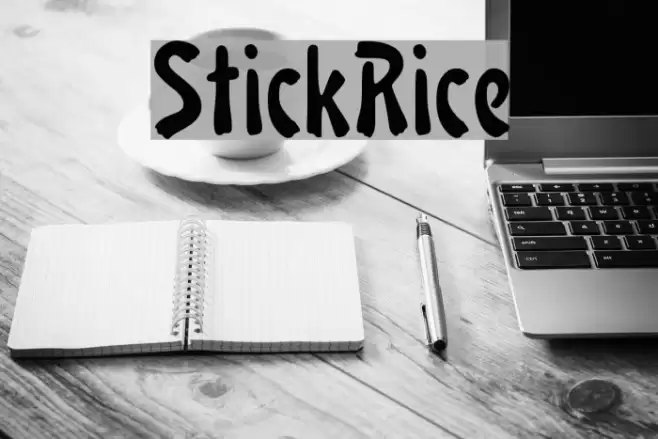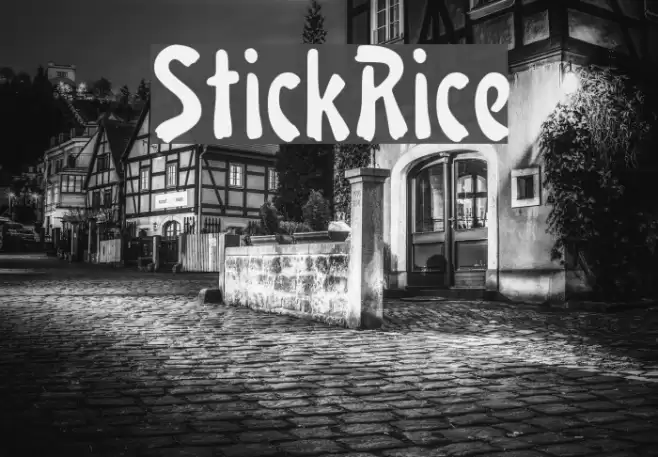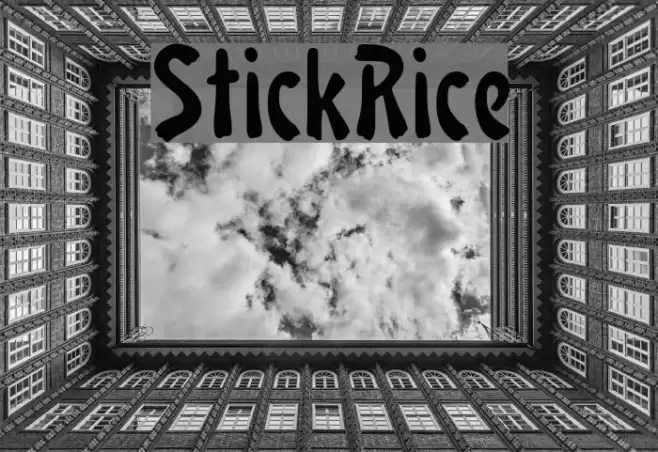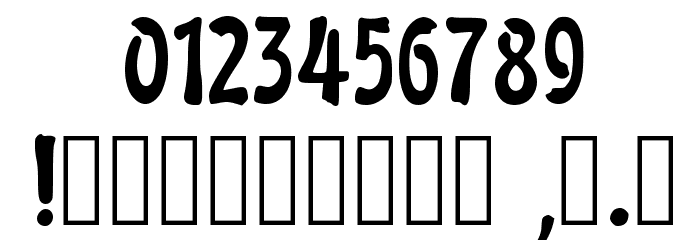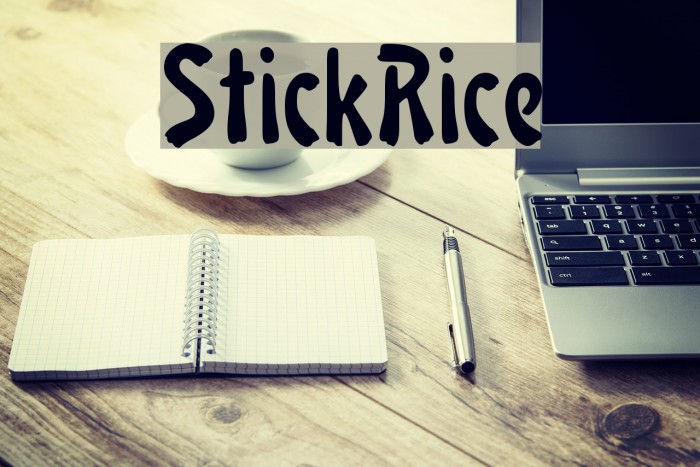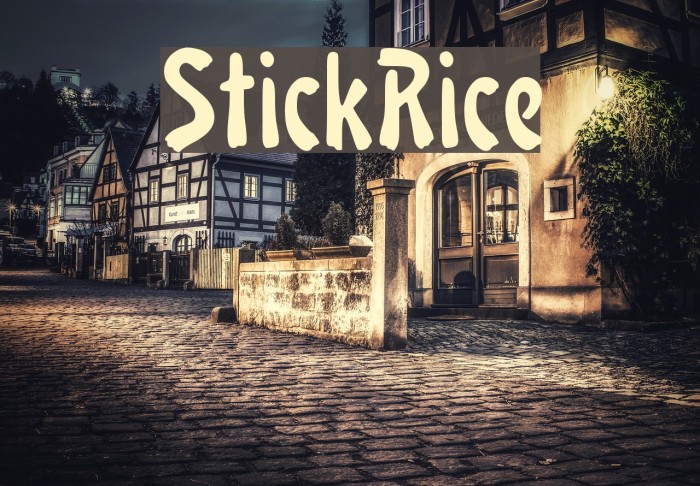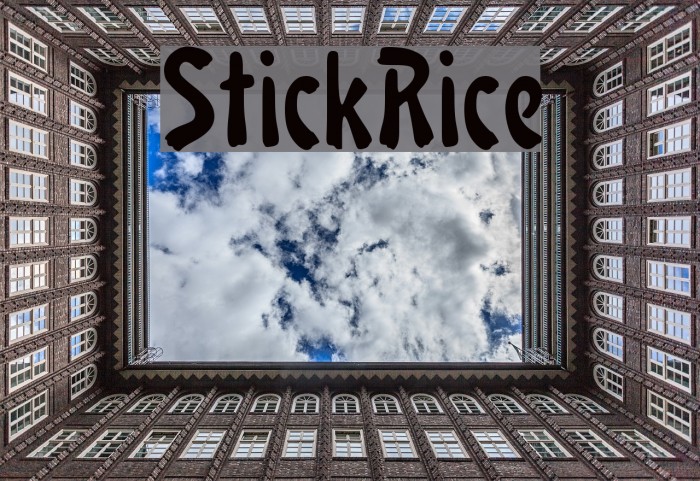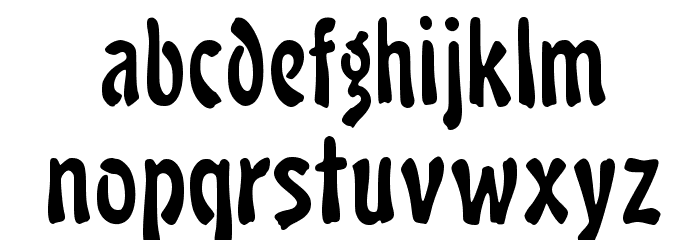
StickRice Font
StickRice Description
This font features a playful and bold design with a hand-drawn aesthetic. The characters are slightly irregular, giving it a whimsical and informal feel. The uppercase letters are robust and dynamic, while the lowercase letters maintain a consistent style with a touch of quirkiness. The numbers are bold and easily readable, complementing the overall style. Special characters are included, maintaining the same playful design. This font is perfect for projects that require a fun and engaging look.
A playful, bold font with a hand-drawn, whimsical style from Uncategorized fonts.
- Proposed Projects: Ideal for children's books, playful branding, party invitations, and creative posters.
- Overall Style: Playful, Whimsical, Hand-drawn